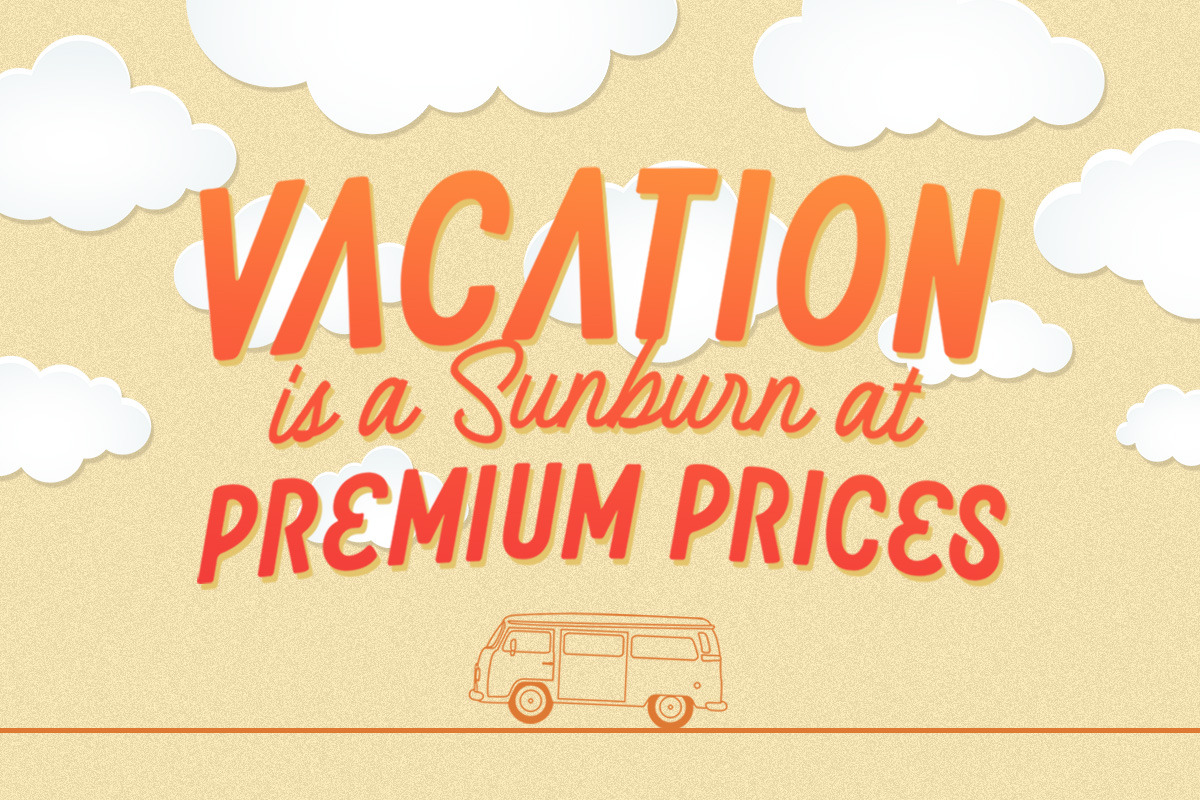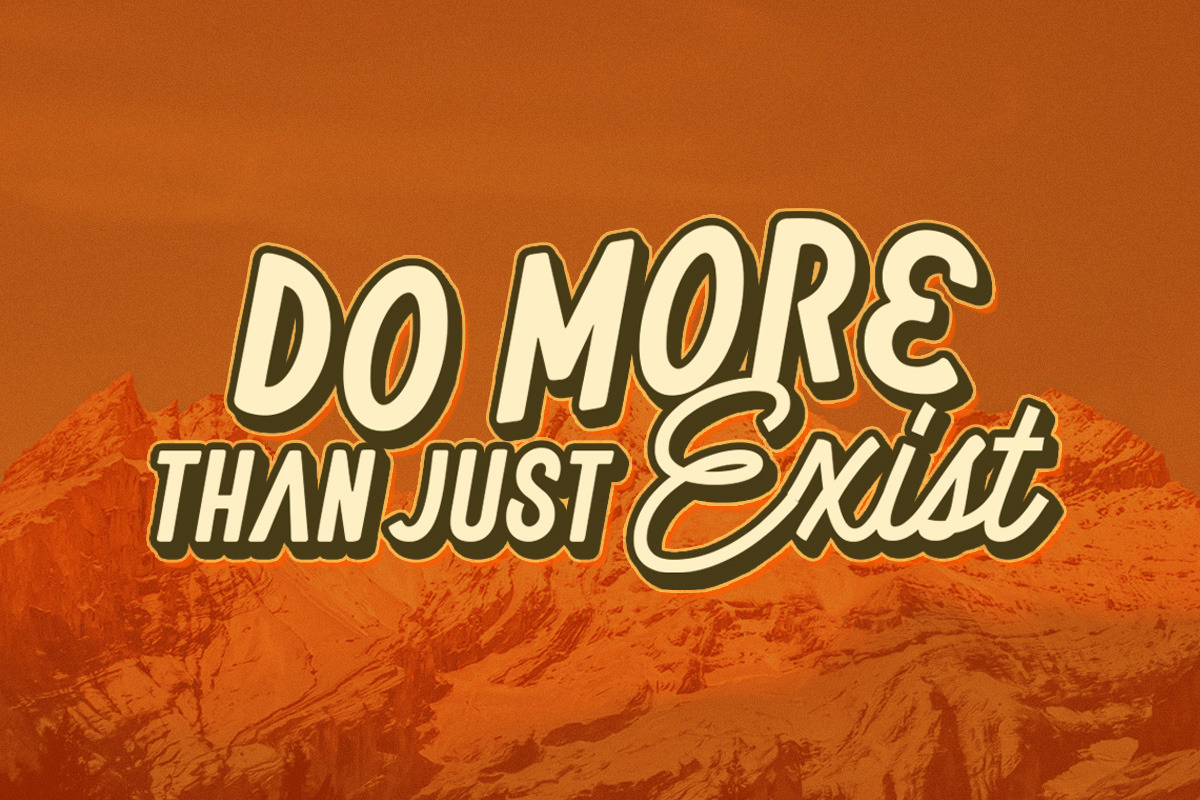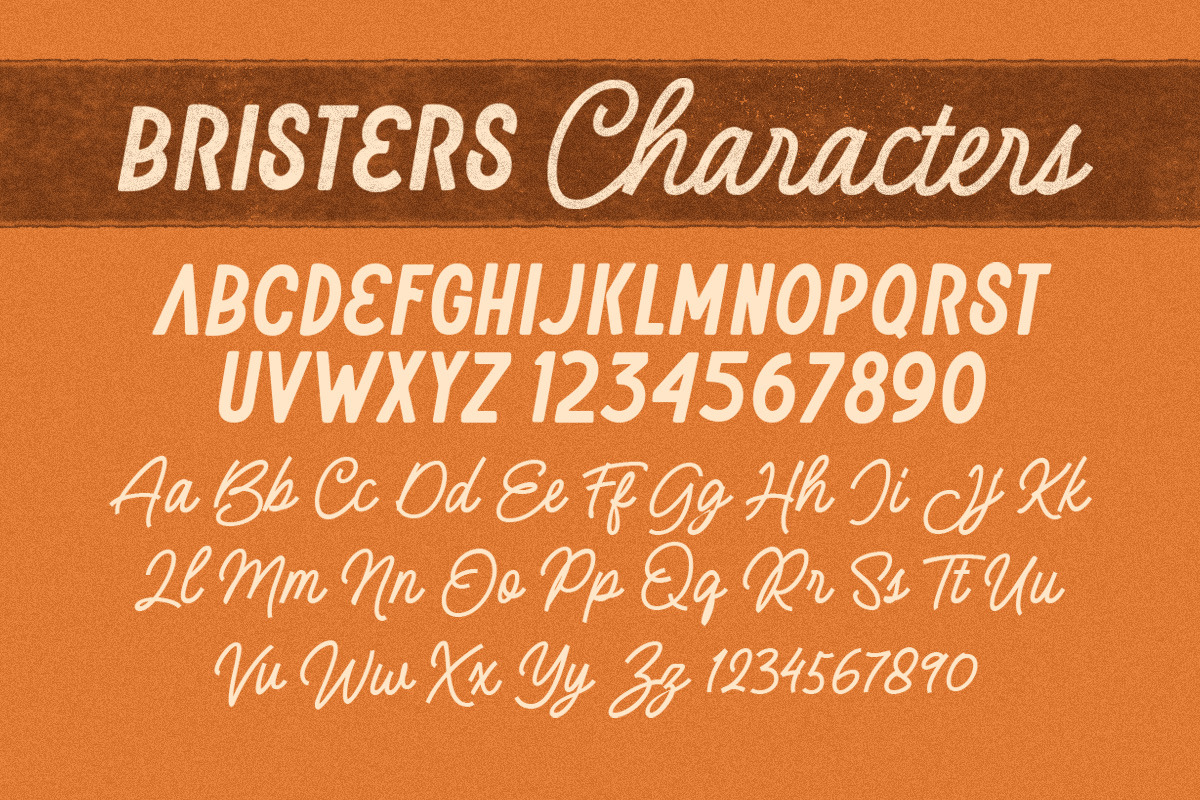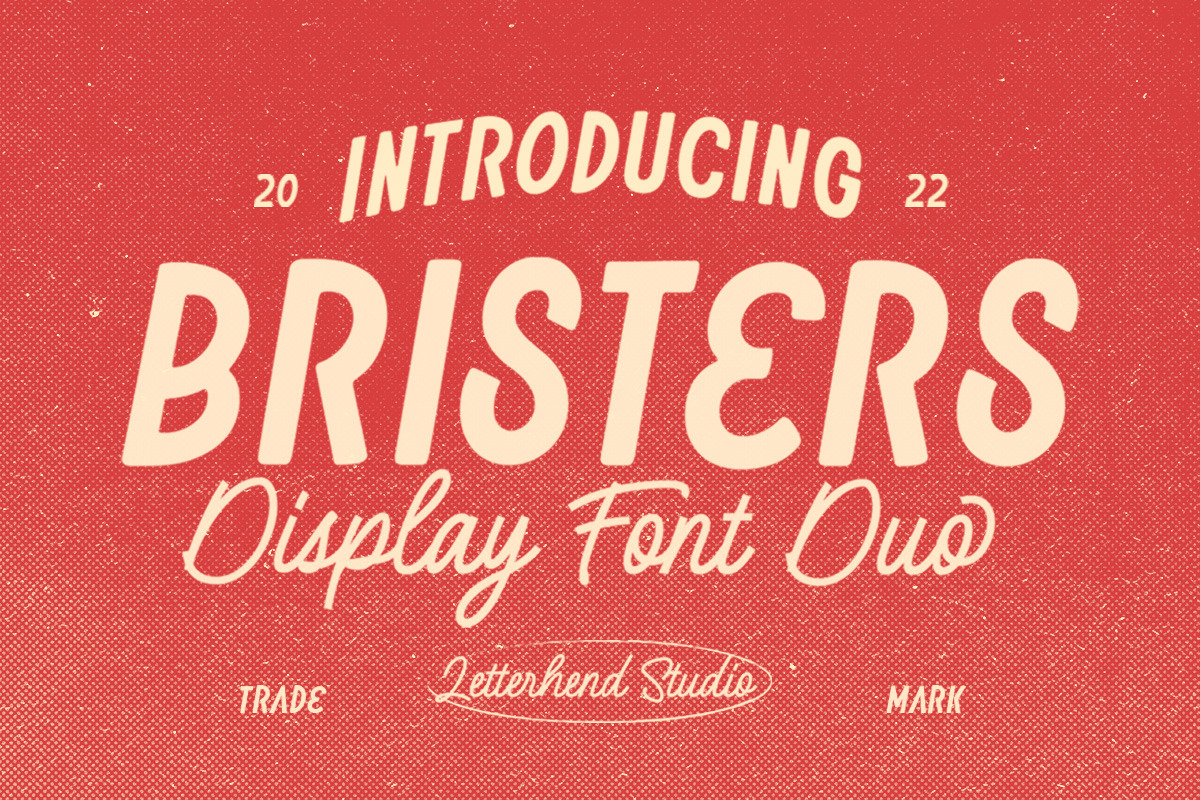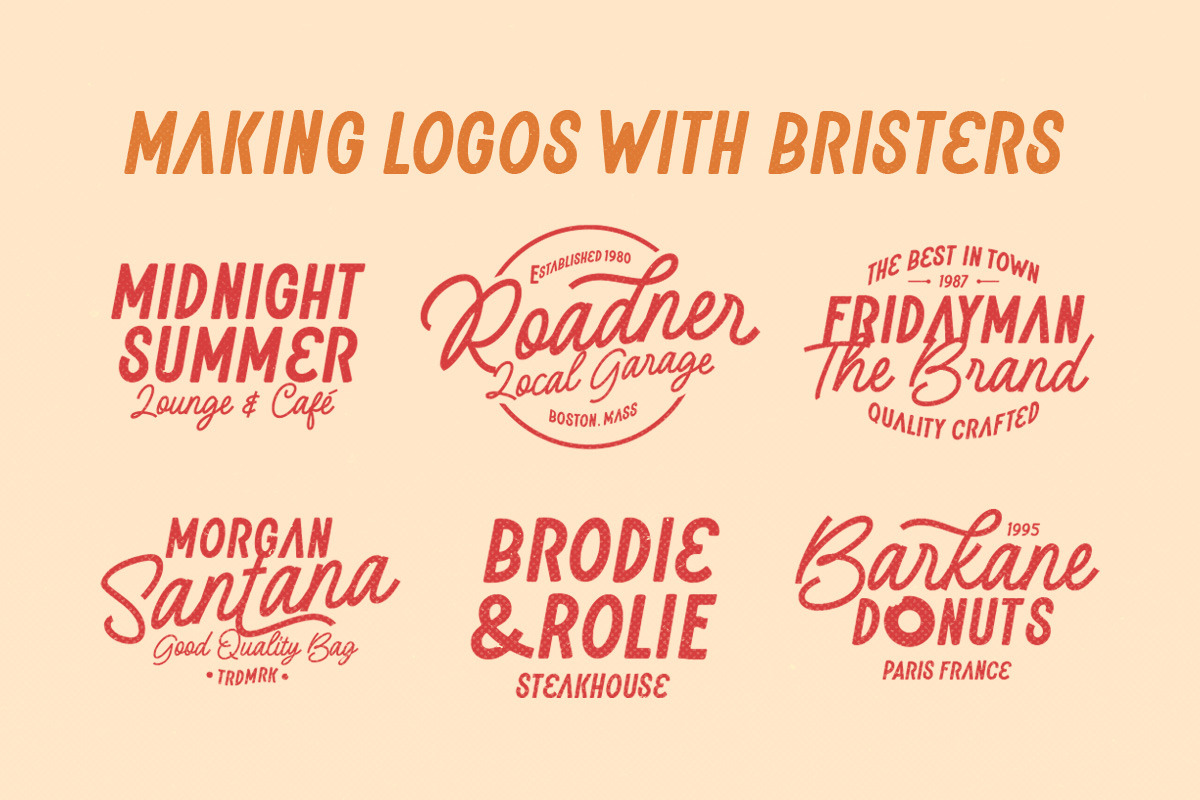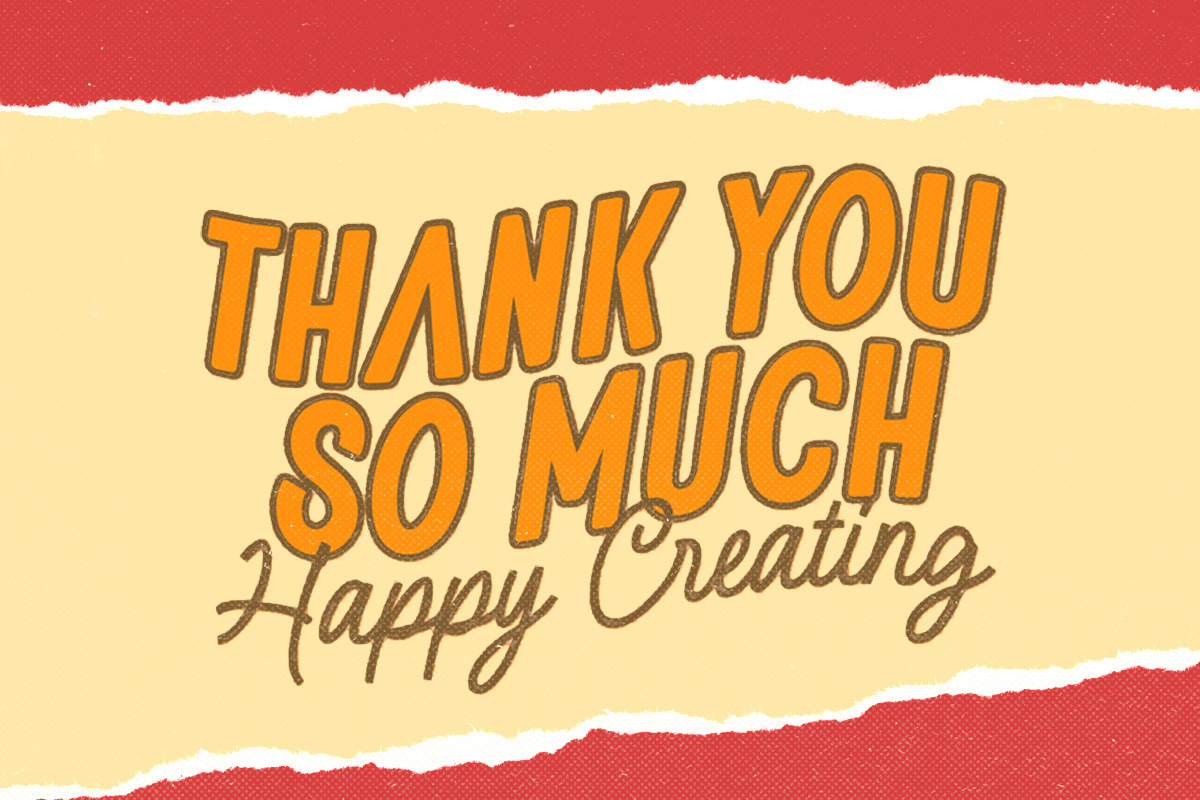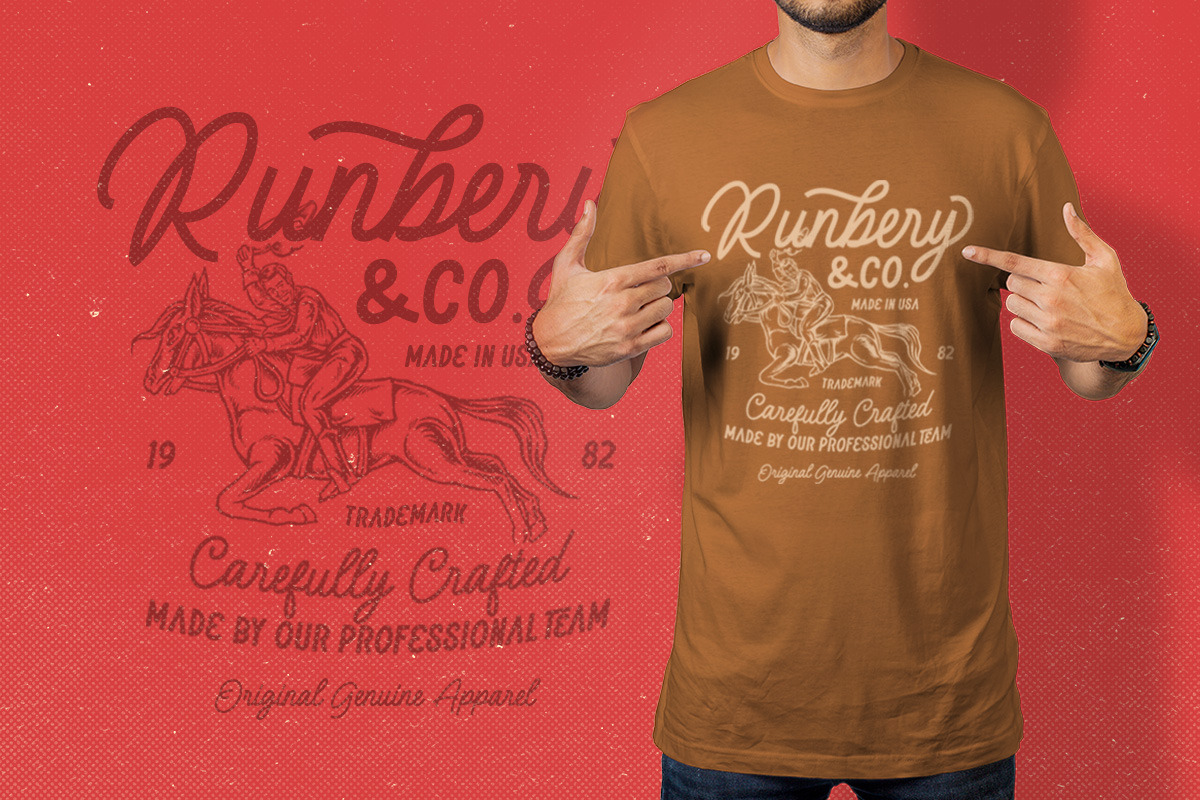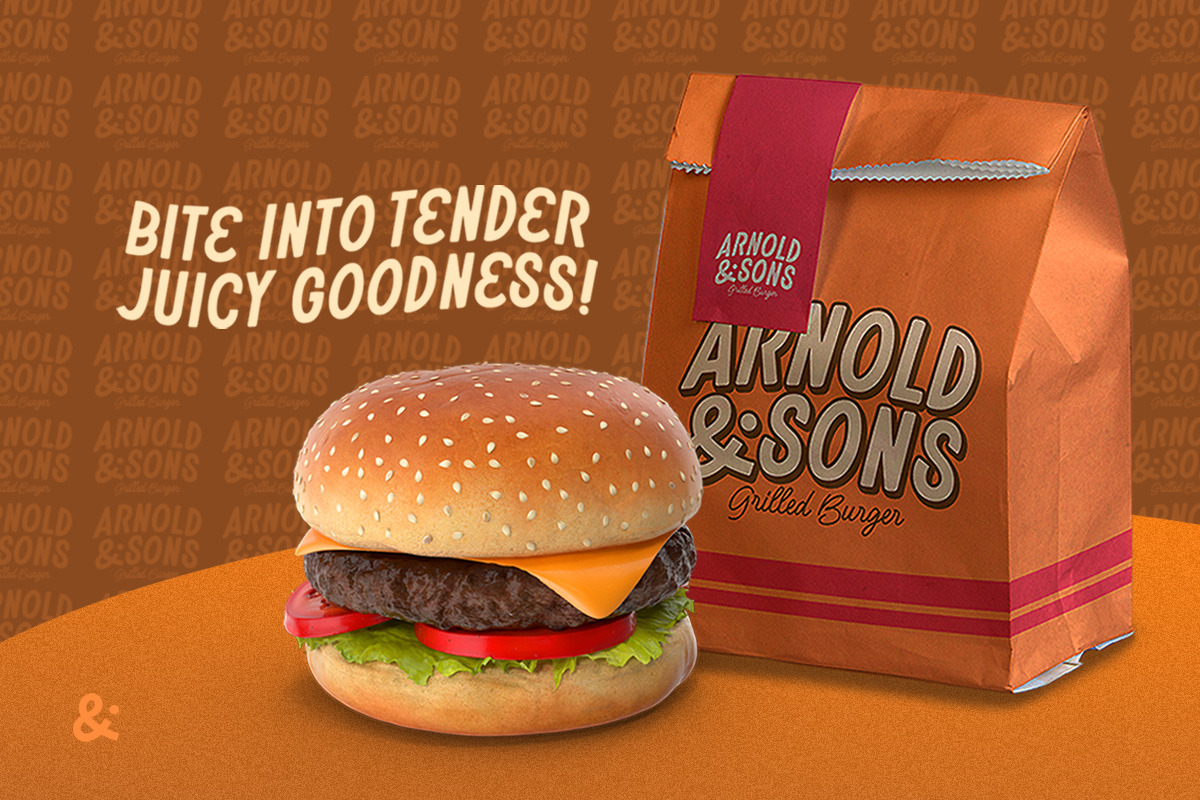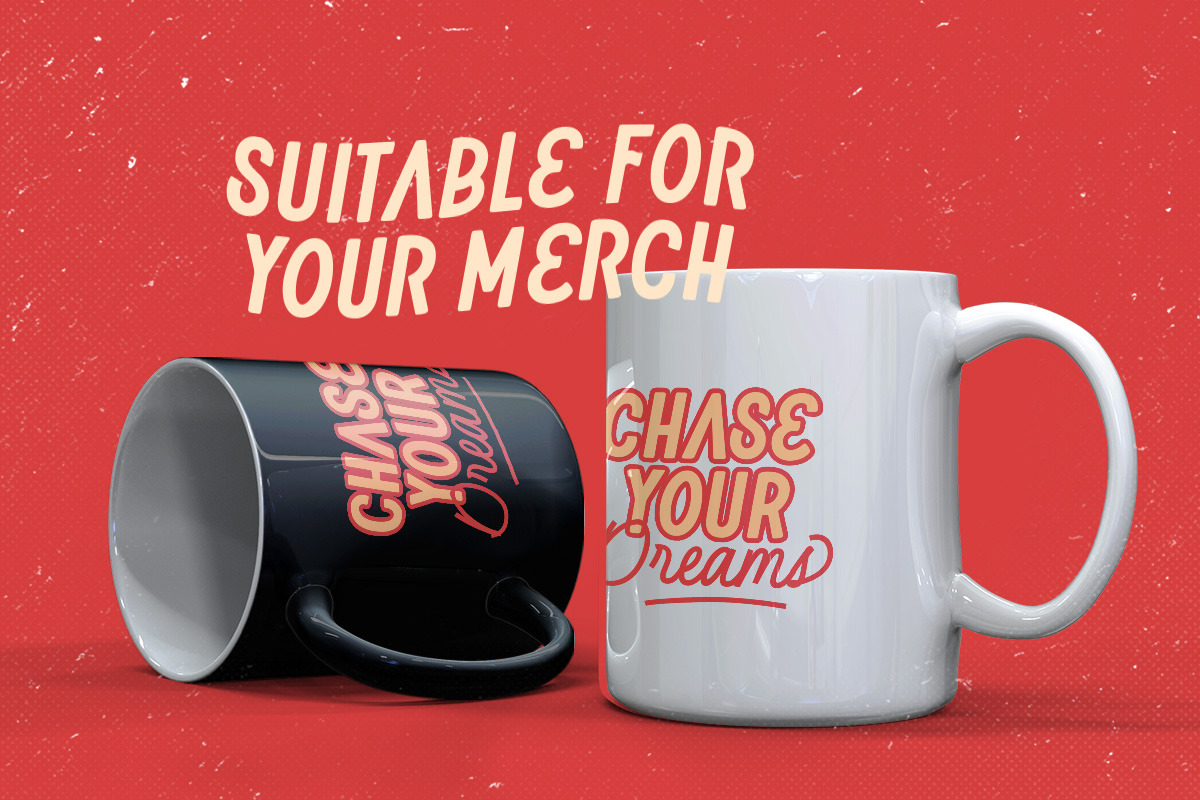
Brister - Display Font Duo
Bristers is a font duo package contain a hand drawn monoline script and sans serif which looks great to be paired especially for vintage and adventure theme! It also comes with extra illustration and premade logo! This font duo is purposely made for headline, display or logotype, and signature which need a standout appearing. This font is also suitable to be applied especially in logo, and the other various formal forms such as invitations, labels, logos, magazines, books, greeting / wedding cards, packaging, fashion, make up, stationery, novels, labels or any type of advertising purpose.
- Bristers Sans & Script
- alternates & ligatures